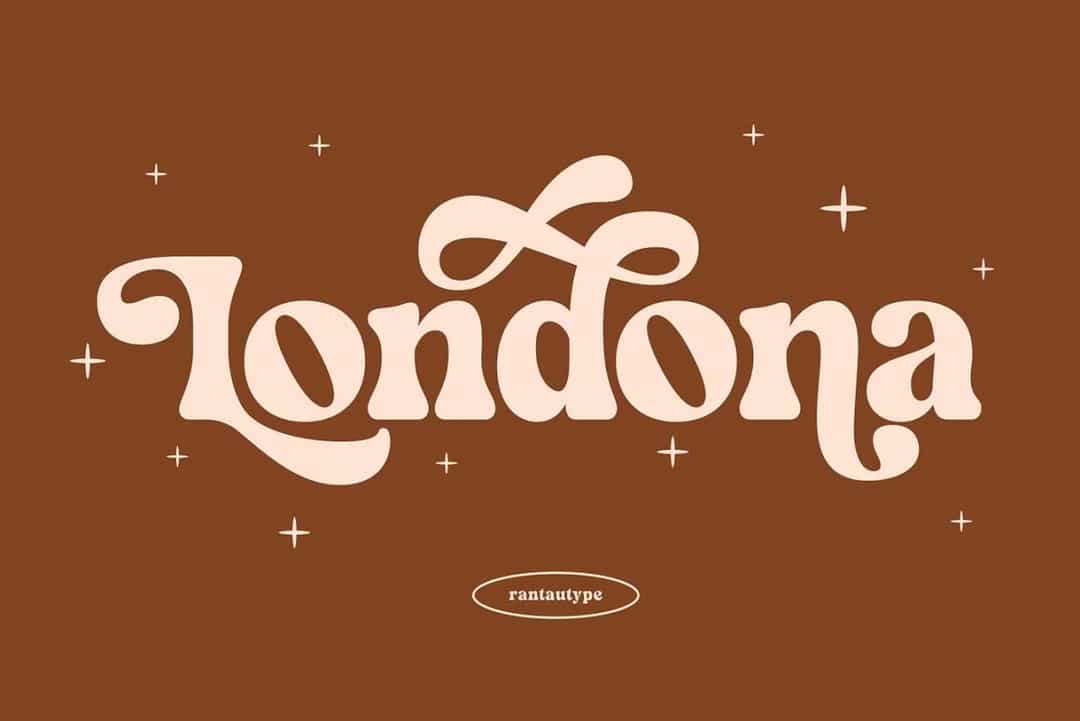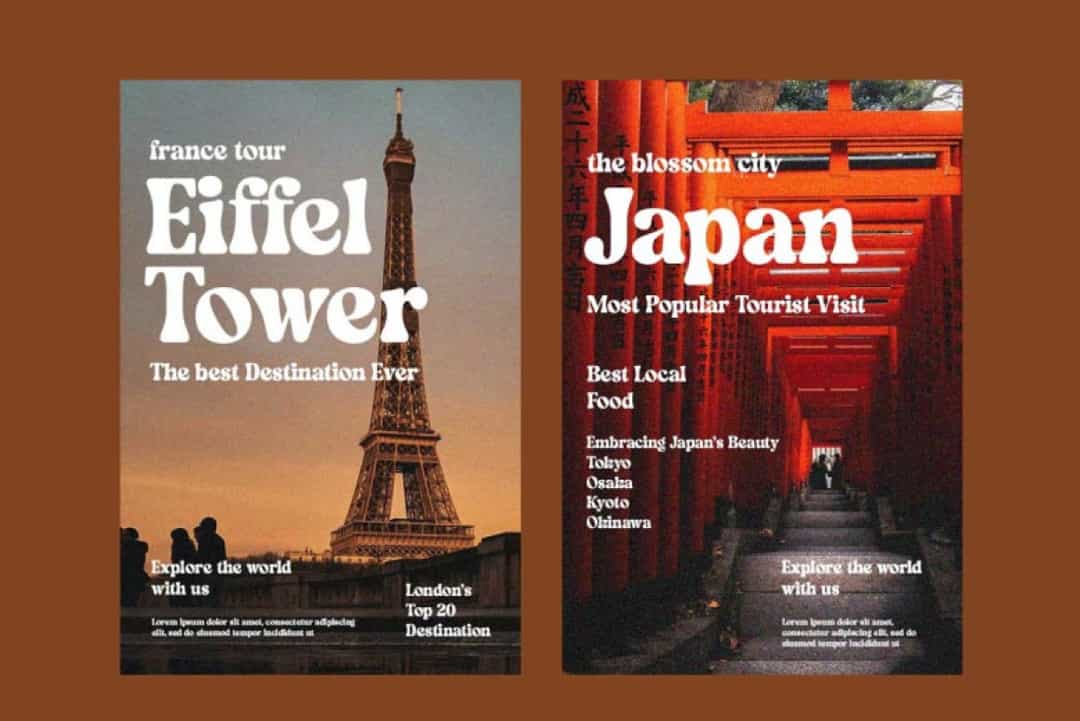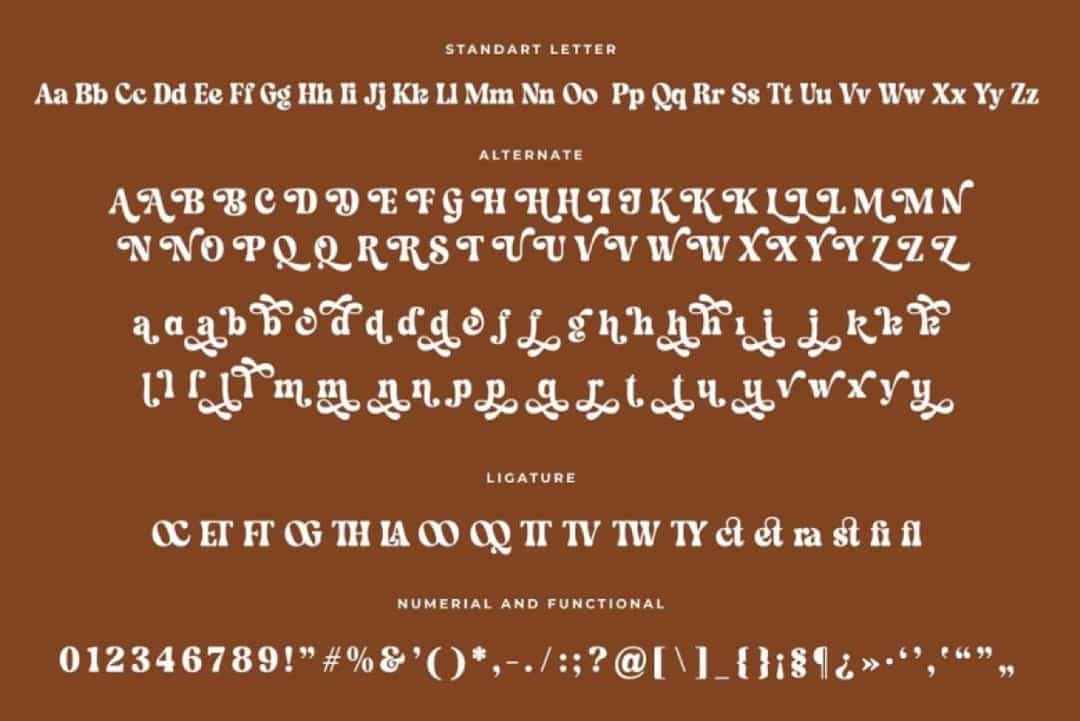
Londona Font
Londona is an eye-catching serif typeface that exudes both style and retro chic. The thick curves give Londona an 80s aesthetic while its traditional serifs allow it to fit right in with vintage mood boards or logos.